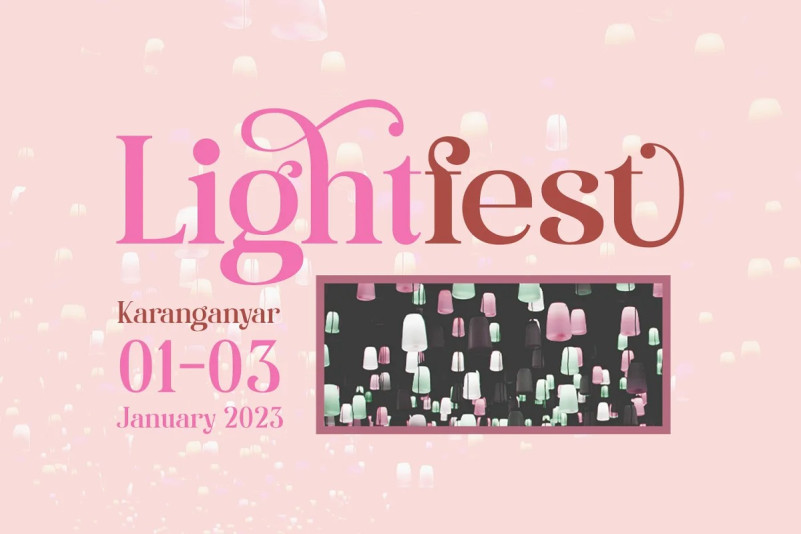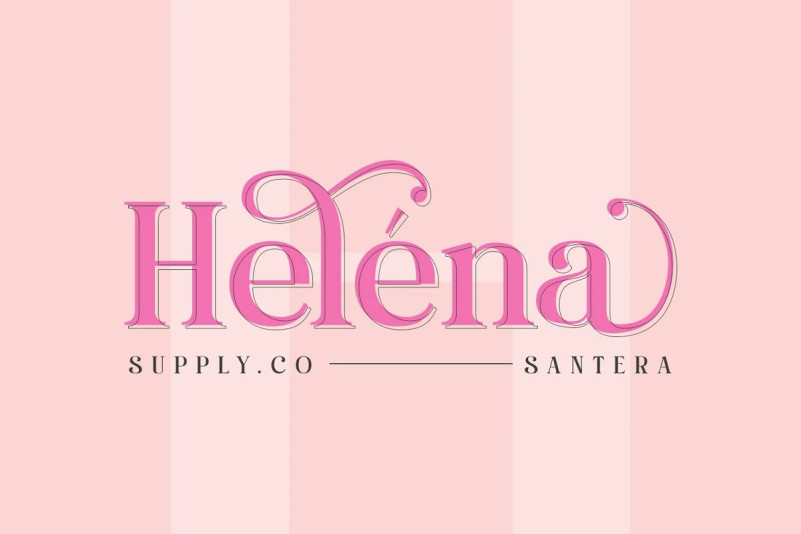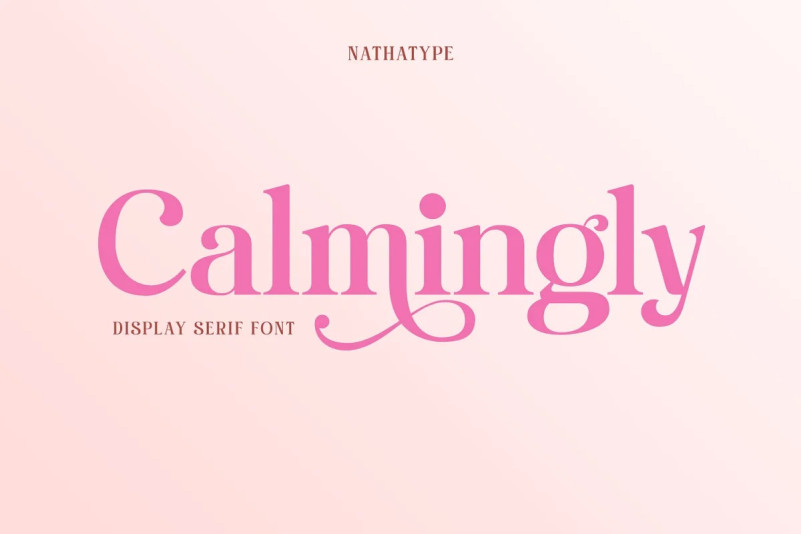
Calmingly Font
Calmingly Serif Font is an elegant display serif font suitably applied to express charmingly aesthetic designs and to give more feminim touches to any of your designs. Its simple designs and letter height and line thickness variations make this font legible. Additionally, another characteristic of this font is the curvy letter edges added to some of the letters. Enjoy Calmingly’s lovely features to beautify your designs.